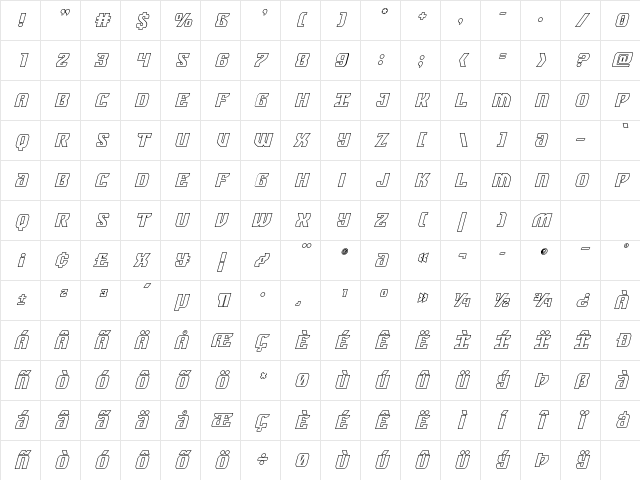
Federal Blue Outline Italic Outline Italic
Style: Outline Italic
Design Context for Federal Blue Outline Italic
Federal Blue Outline Italic is built around its visual character rather than neutral utility - its distinctive forms are designed to make an impression at display sizes. The slanted form adds forward momentum and visual energy.